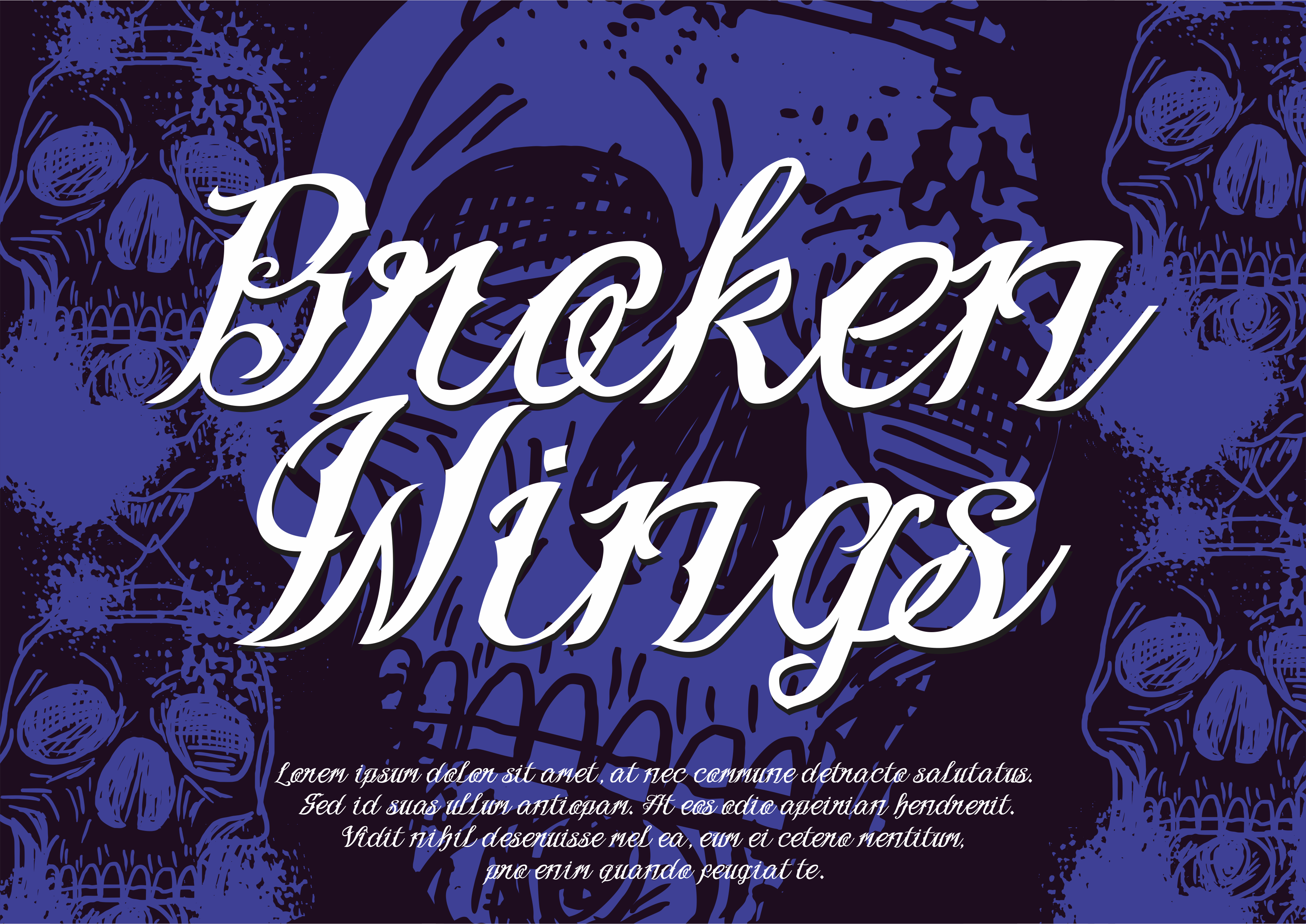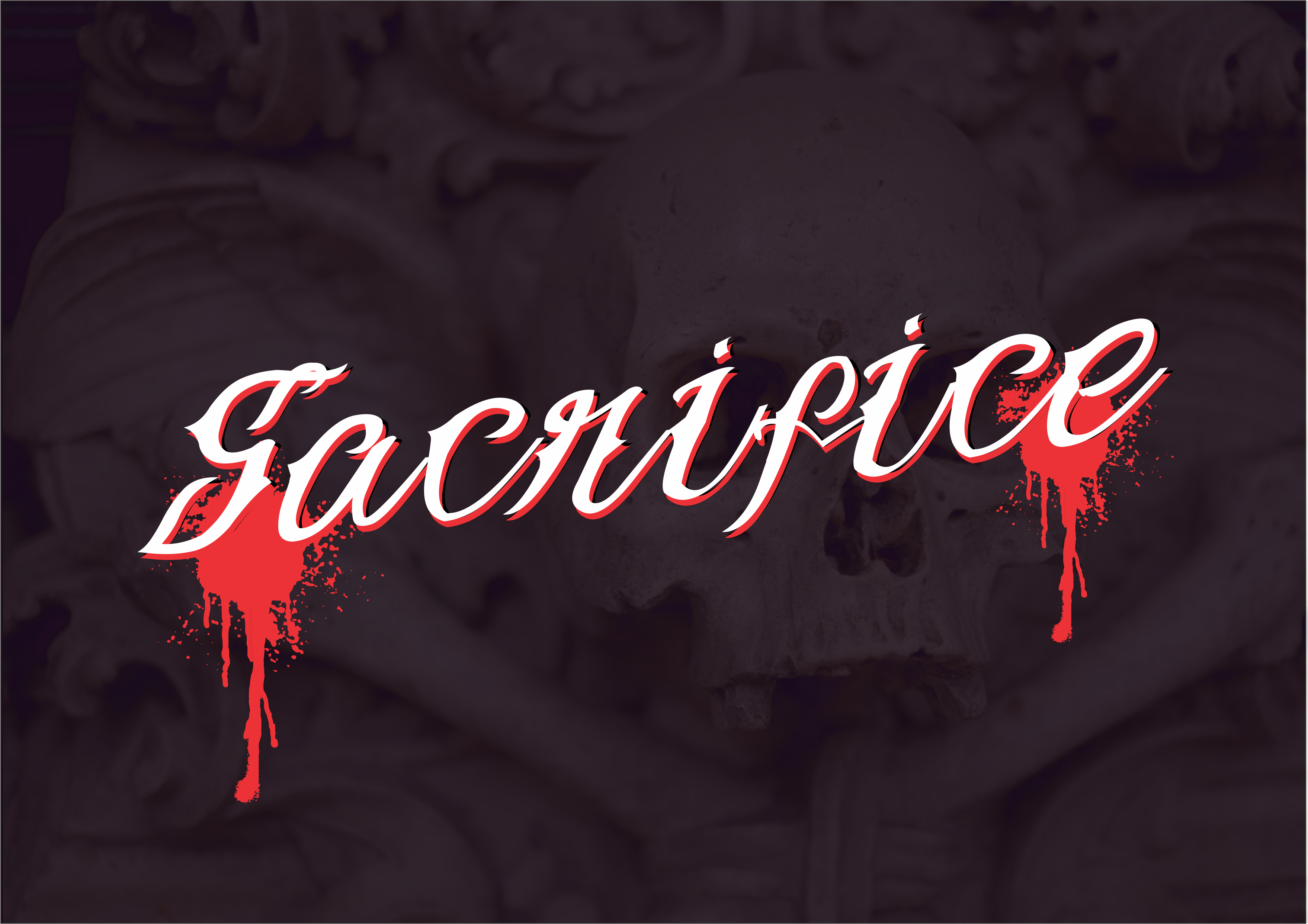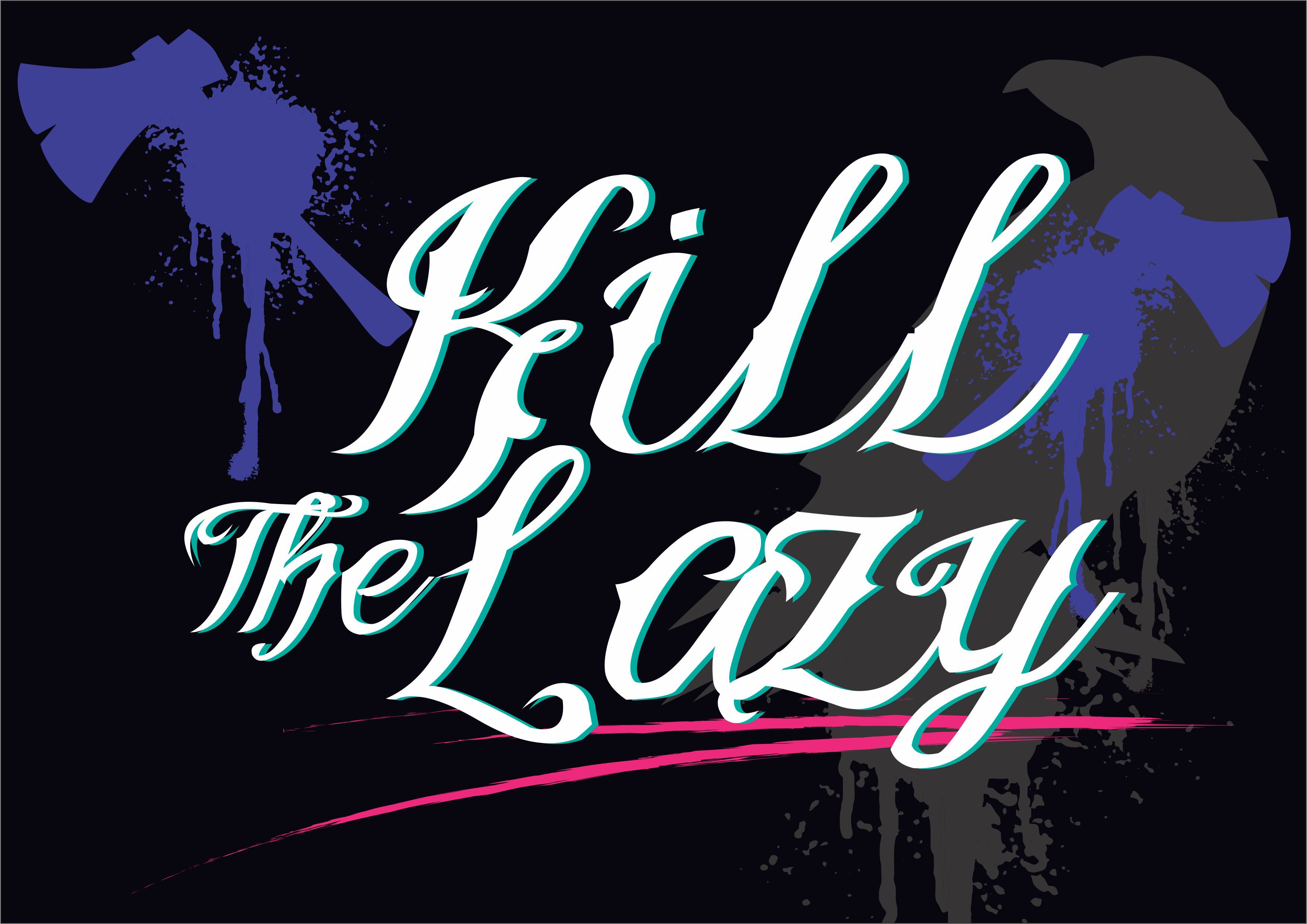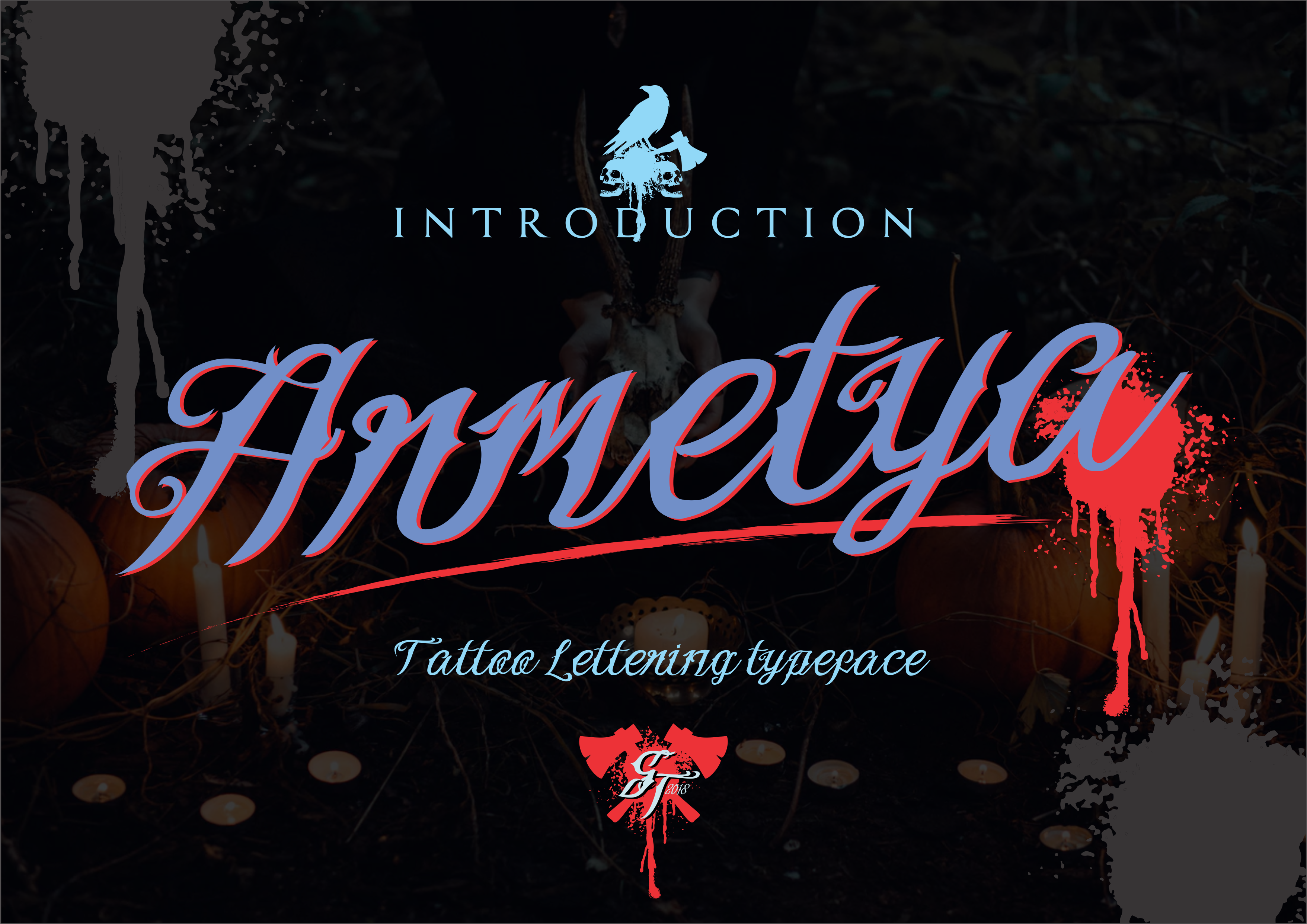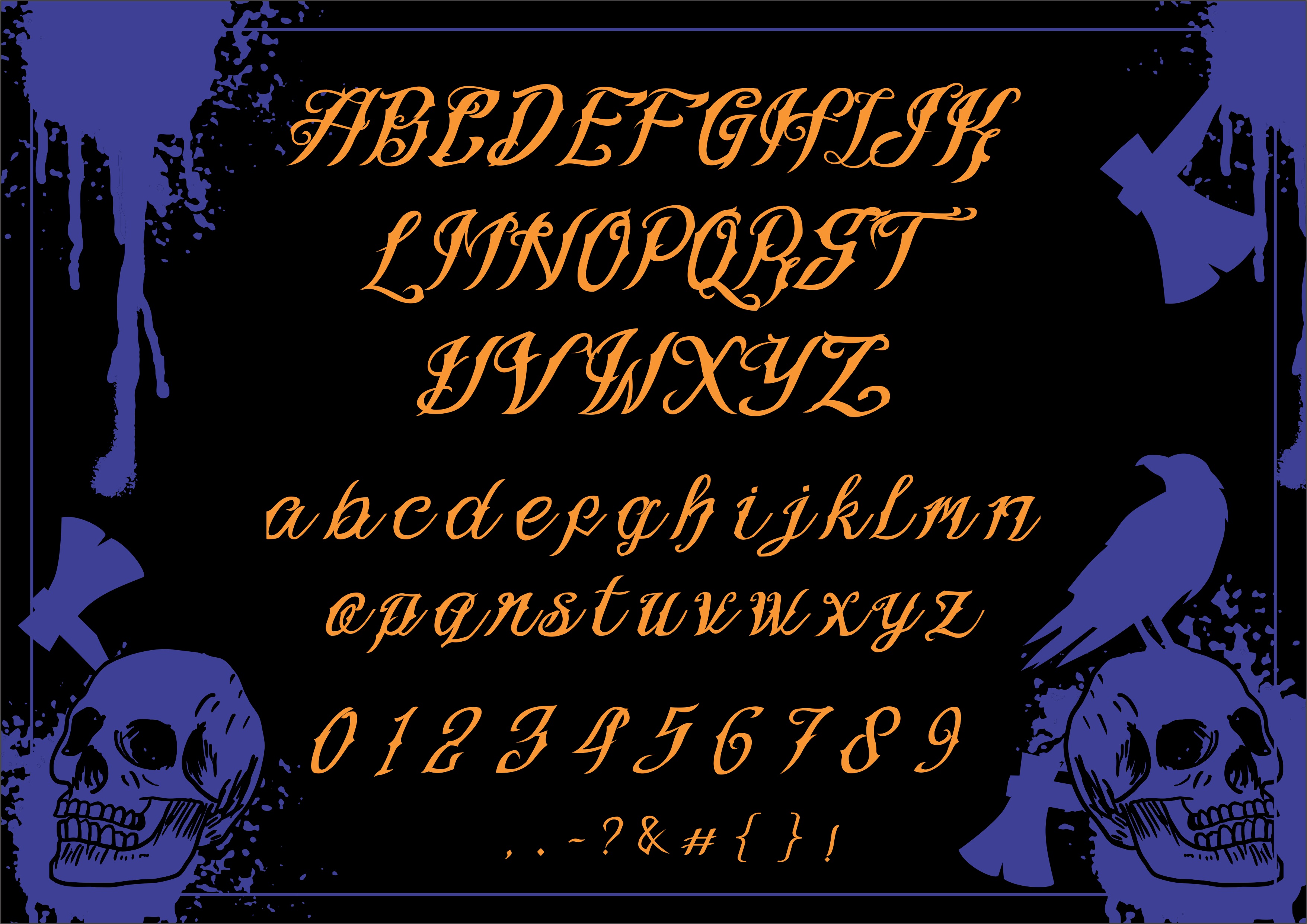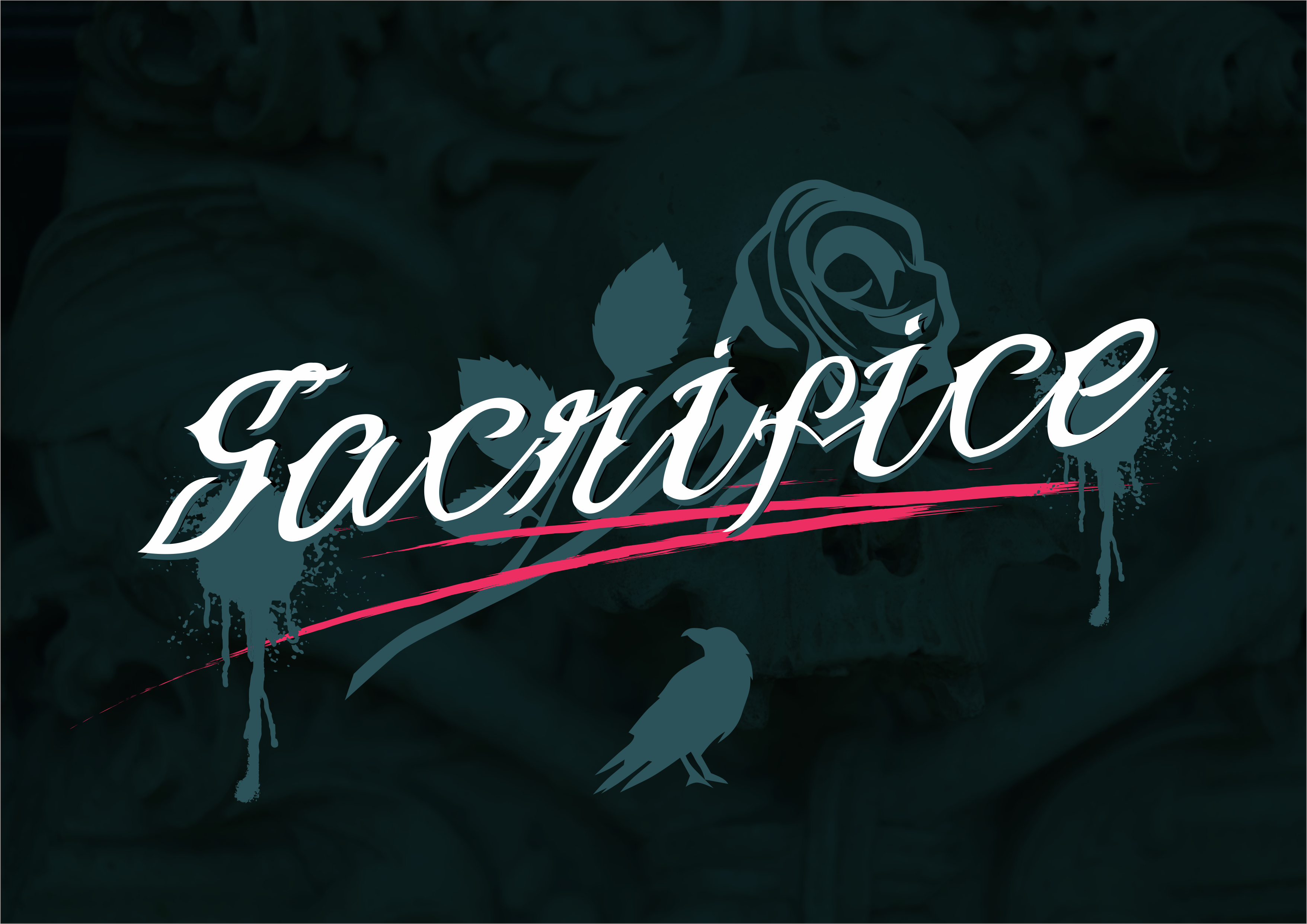
Introducing Armetya Font: A Stunning Tattoo-Inspired Typeface
Are you a designer or crafter looking for a unique and eye-catching font to add a touch of masculinity to your projects? Look no further than Armetya Font, a beautifully crafted typeface inspired by the art of tattoo-lettering. With its distinctive script style and elegant accents, Armetya is the perfect choice for logotypes, branding, and a wide range of design applications.
The Inspiration Behind Armetya
Armetya Typeface draws its inspiration from the world of tattoo-lettering, where art meets typography. The font’s creator aimed to capture the essence of this unique art form, infusing it with a sense of masculinity and style. The result is a font that exudes confidence, strength, and a touch of rebelliousness.
Key Features of Armetya Font
So, what makes Armetya Font stand out from the crowd? Here are some of its key features:
- Tattoo-inspired design: Armetya’s unique design is inspired by the art of tattoo-lettering, making it perfect for projects that require a bold and edgy look.
- Script style: The font features a beautiful script style that adds a touch of elegance and sophistication to any design.
- Masculine theme: Armetya’s bold and confident design makes it an ideal choice for projects with a masculine theme.
- Accents and flair: The font features beautiful accents and flair, adding a touch of personality to any design.
Use Cases for Armetya Font
Armetya Font is a versatile typeface that can be used in a wide range of design applications, including:
- Logotypes and branding: Armetya’s unique design makes it perfect for creating logotypes and branding materials that require a bold and eye-catching look.
- Tattoos and body art: As a font inspired by tattoo-lettering, Armetya is a natural fit for tattoo and body art designs.
- Advertising and marketing: The font’s bold and confident design makes it an excellent choice for advertising and marketing materials.
- Fashion and apparel: Armetya’s stylish and elegant design makes it perfect for fashion and apparel branding.
Why Choose Armetya Font?
So, why should you choose Armetya Font for your next design project? Here are just a few reasons:
- Unique design: Armetya’s tattoo-inspired design sets it apart from other fonts, ensuring your designs stand out from the crowd.
- High-quality craftsmanship: The font is crafted with attention to detail, ensuring a high-quality finish that will impress your clients or audience.
- Versatility: Armetya’s versatility makes it suitable for a wide range of design applications, from logotypes to advertising materials.
In conclusion, Armetya Font is a stunning tattoo-inspired typeface that is sure to add a touch of masculinity and style to your designs. With its unique script style, beautiful accents, and bold design, Armetya is the perfect choice for designers and crafters looking to create eye-catching and memorable designs. Whether you’re working on a logotype, branding materials, or advertising projects, Armetya Font is an excellent choice that is sure to impress.